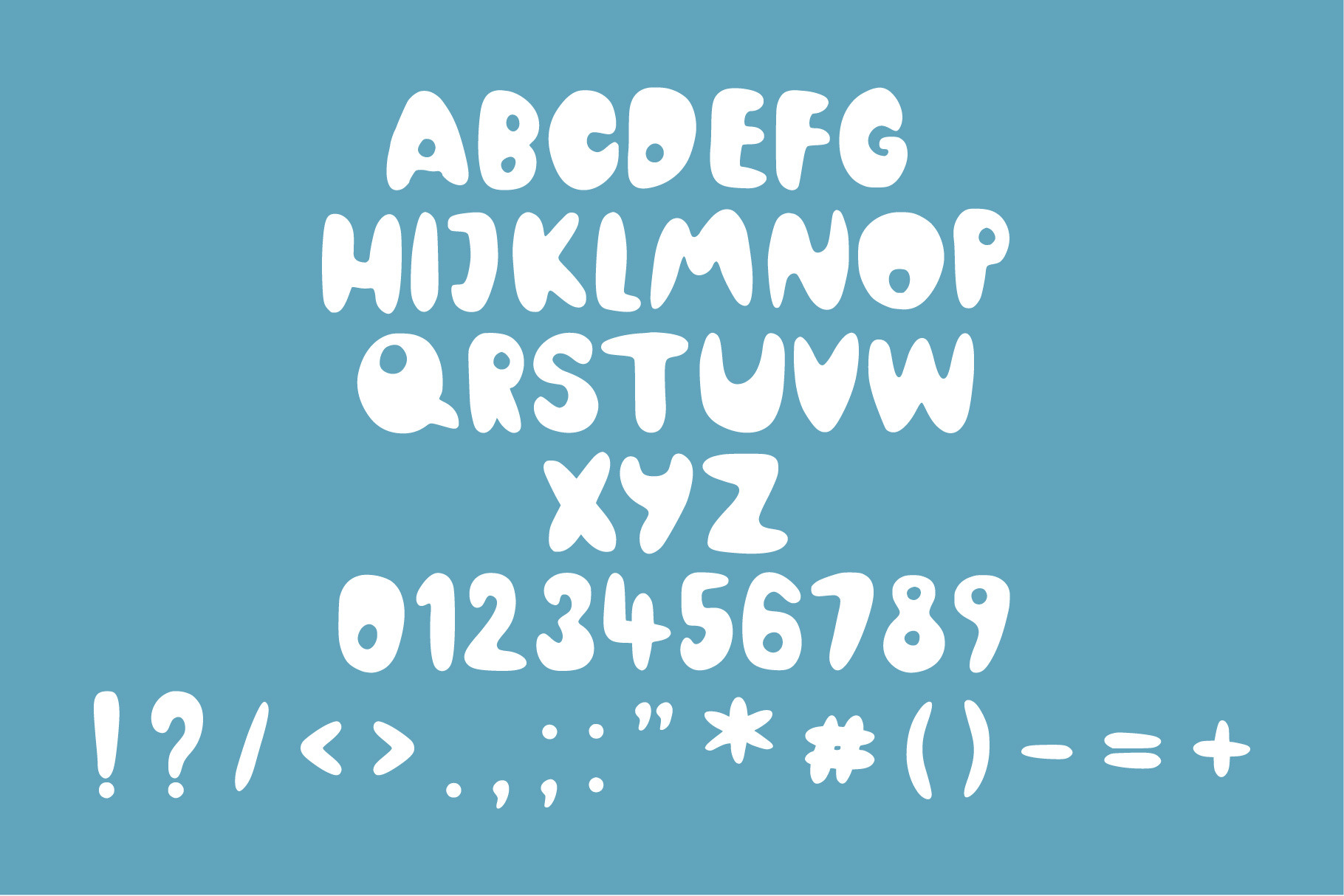
PlumpDon-Kids Font
PlumpDon-Kids Font.
Fun bubble letter font. Best for kids illustration, logo, poster, t-shirt design and many other.
Font includes:
Uppercase, Numbers and Punctuation.